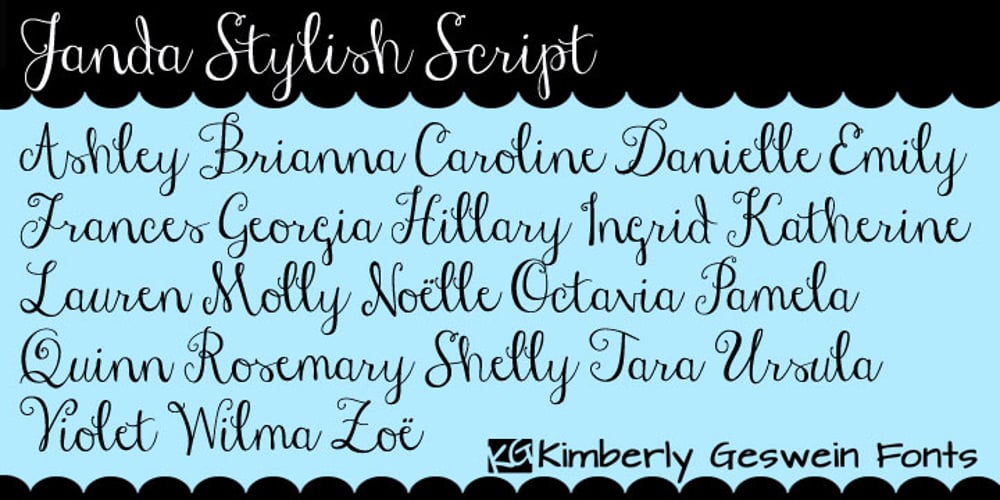
Janda Stylish Script
Janda Stylish Script font
Janda Stylish Script Font Family was designed by Kimberly Geswein and published by Kimberly Geswein. Janda Stylish Script contains 1 styles and family package options. I love the trends in handwritten calligraphy and wanted to play with playful lettering. I’ve heard from many of my customers that they don’t use Open Type software and feel limited in the cool features of OT scripts because of this, so I’ve replaced the | (bar key) with a left-sided tail to start the lowercase r and s in words that begin with those letters.